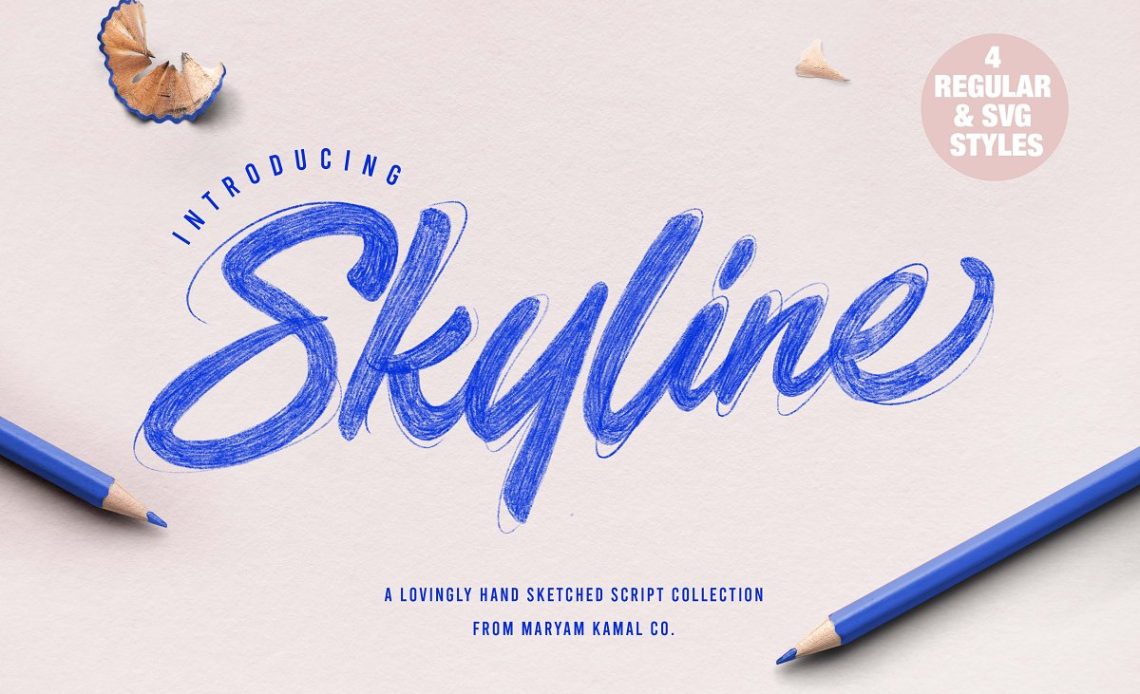
Introducing the Skyline Script Font Collection, a modern hand-lettered script font created by Maryam Kamal. This collection is perfect for anyone looking to make a statement with their designs. With its bold and unique pencil texture, this font is sure to elevate any project.
The Skyline Script Font Collection includes both regular and textured SVG versions of the font, as well as a flare version to add more character to your designs. With multi-lingual support, this font collection is perfect for creating eye-catching branding, headlines, quotes, invites, t-shirts, logos, and more!
This font collection is especially great for handmade, food & beverage, and artisan goods. Use it to spice up your Instagram feed or to create unique designs for your products. The included help & FAQ will get you started in no time.